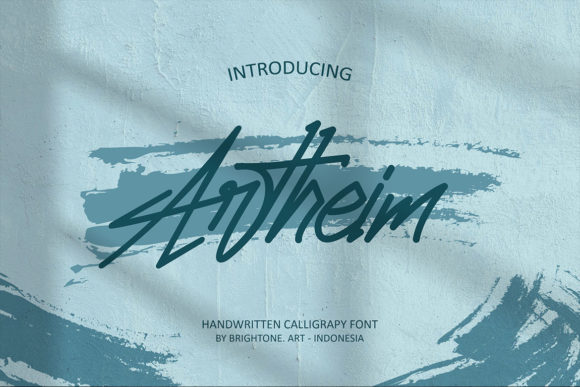
The Ultimate Guide to Artheim Font: Unleashing Creative Possibilities
I’ll never forget the time I was working on a project for a streetwear client, and I just couldn’t find the right font to capture the edgy, urban vibe they were looking for. I scoured the internet, tried out countless fonts, but nothing seemed quite right. That was until I stumbled upon Artheim Font. With its cool, asymmetrical handwritten style and street art flair, it was love at first sight! In this article, I’ll share my experience with Artheim Font, its features, and how to make the most of it in your designs.
What is Artheim Font?
Artheim Font is a modern, handwritten font that embodies the spirit of street art. Its unique, asymmetrical design makes it perfect for creating bold and eye-catching designs. Whether you’re working on a t-shirt, sportswear, logo, advertisement, or clothing project, Artheim Font is an excellent choice.
Here’s what I love about Artheim Font:
- ✨ Unique and stylish design that adds a touch of street art to any project
- ✅ Highly versatile and suitable for a wide range of design projects
While Artheim Font is an excellent choice for many designers, it’s not without its quirks. Here are a few things to keep in mind:
- ⚠️ Some users may find the font a bit too bold or overpowering for certain projects
- 🤔 Limited availability of certain characters or glyphs in certain software
Artheim Font was inspired by the street art movement of the 1980s. The font’s creator, a young designer named Alex, was fascinated by the raw energy and creativity of street art. He wanted to capture the essence of this movement in a font that would be both stylish and functional. After months of research and design, Artheim Font was born.
| Is Artheim Font suitable for body text? | While Artheim Font is a beautiful font, it’s primarily designed for display purposes. It’s best used for headlines, titles, and short paragraphs of text. |